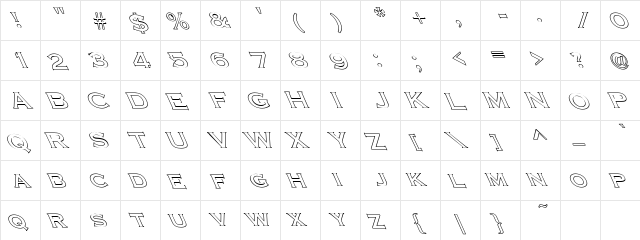
Cimier Hollow Extreme Lefty Regular
Design Context for Cimier Hollow Extreme Lefty Typeface
Cimier Hollow Extreme Lefty is a composed and adaptable typeface that performs quietly and consistently across a wide range of design contexts.